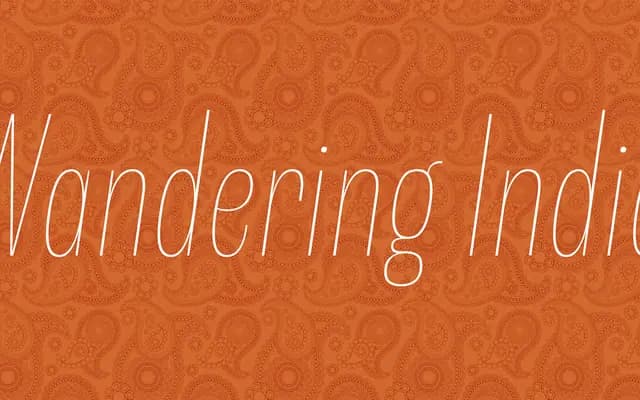
A highly condensed, thin-stroked sans-serif designed for both text setting and titling, with stylistic alternates for key characters.
Despite extremely thin strokes, the design maintains a strong and dignified presence, making it suited to both body text and headline work at narrow column widths. Key characters including a, e, f, g, and y carry alternate glyphs accessible via the OpenType stylistic alternates feature, giving designers additional typographic options. The italic also includes alternates for g and y, extending the customisation further.
Shiva is a highly condensed sans-serif with very thin strokes, designed for both text and titling use. Its extreme condensation and thin construction place it firmly in the condensed display sans category.